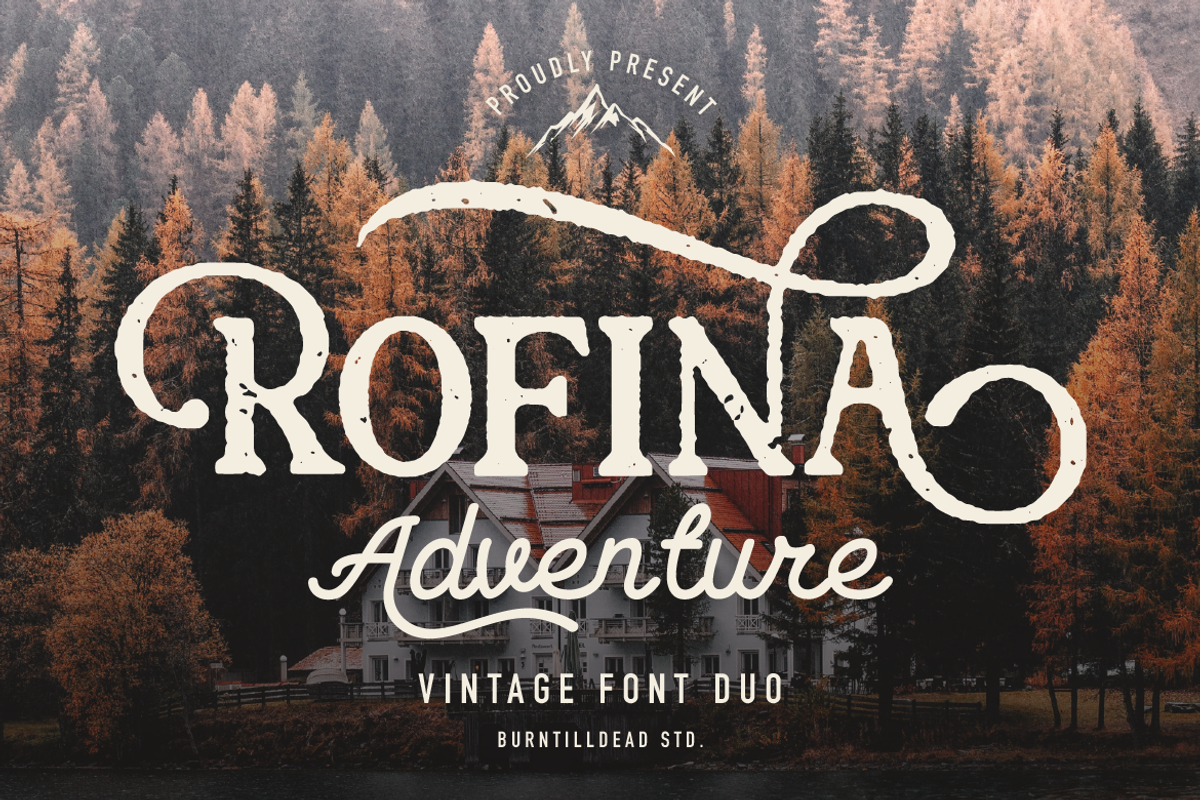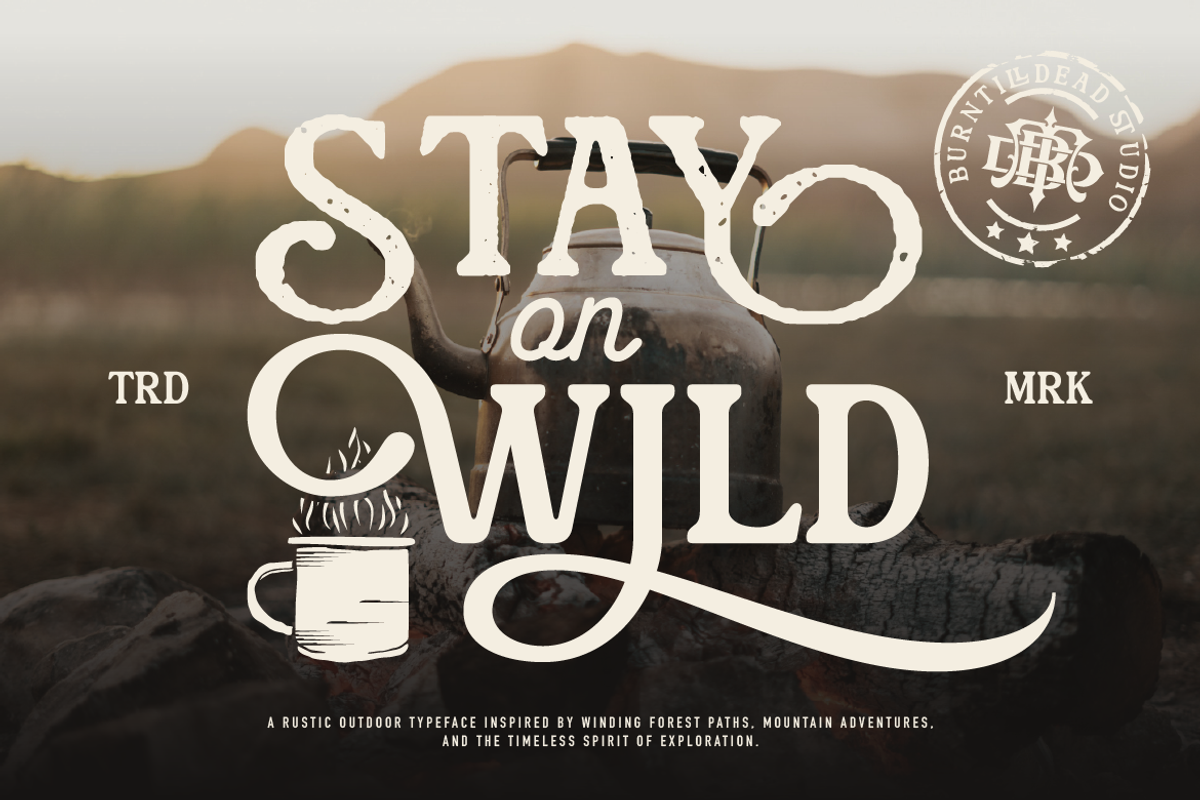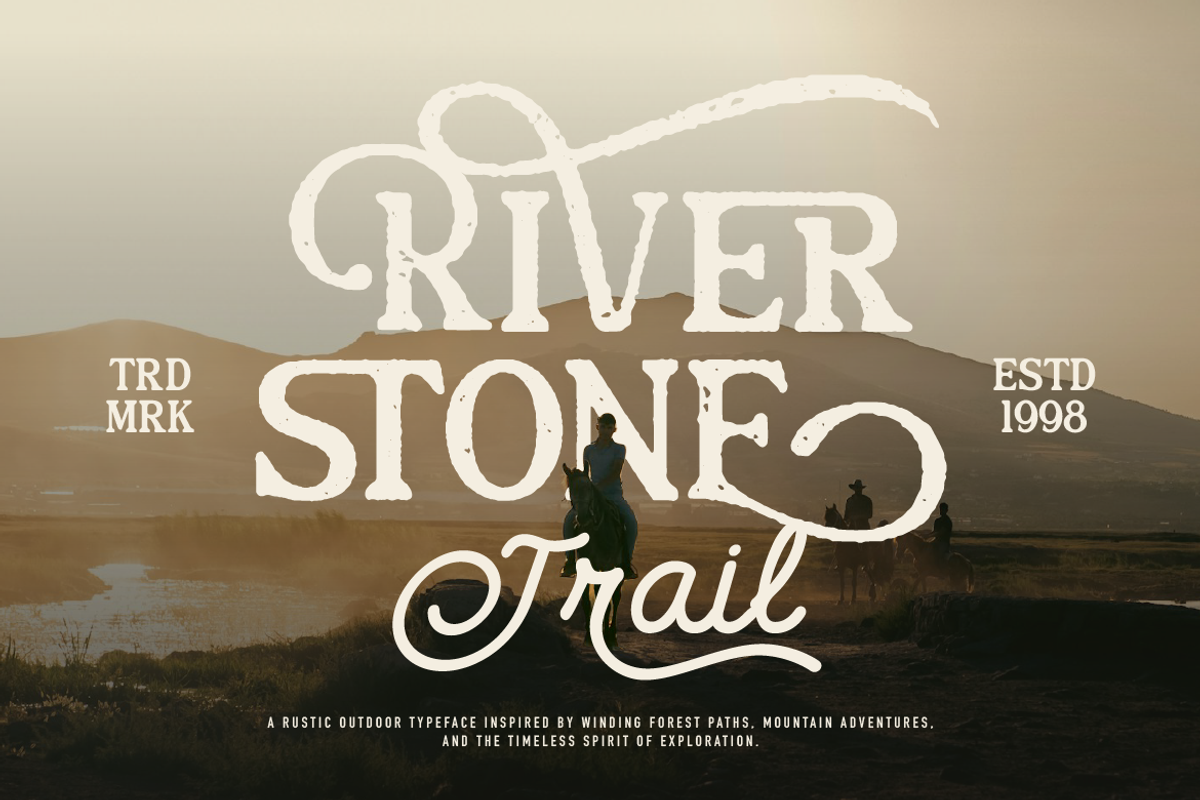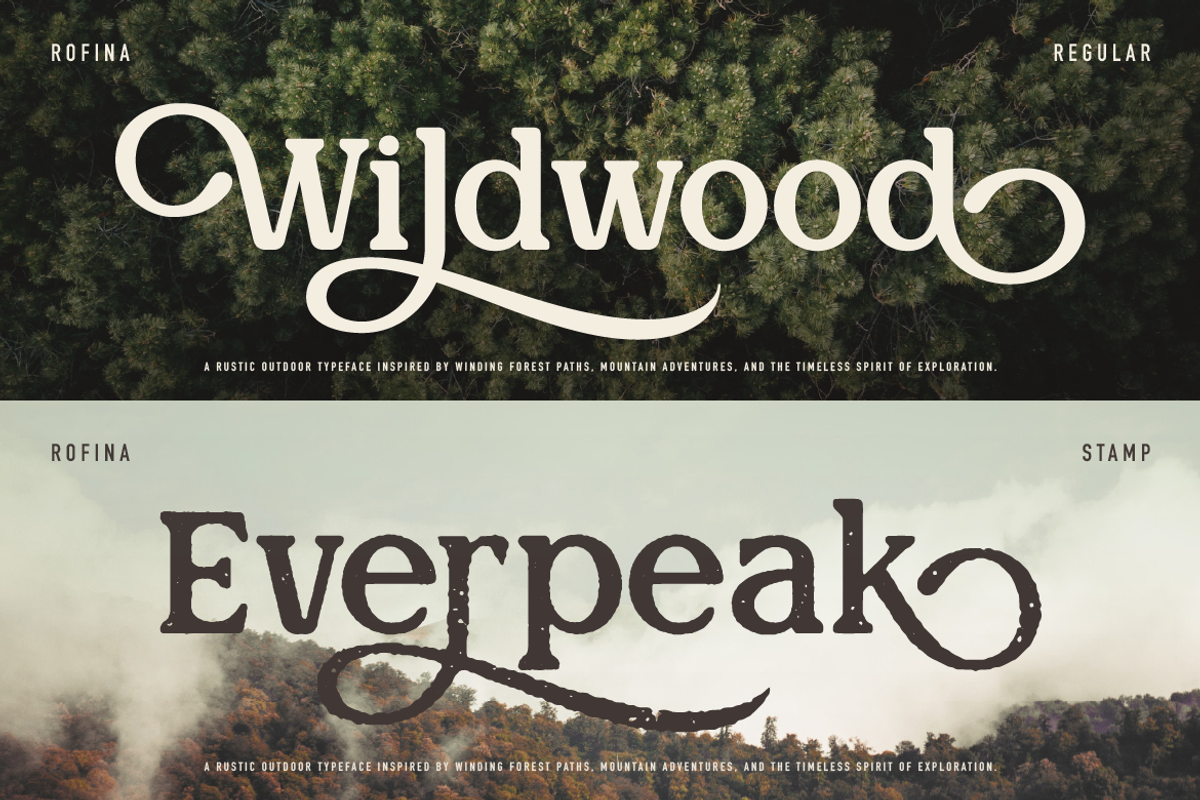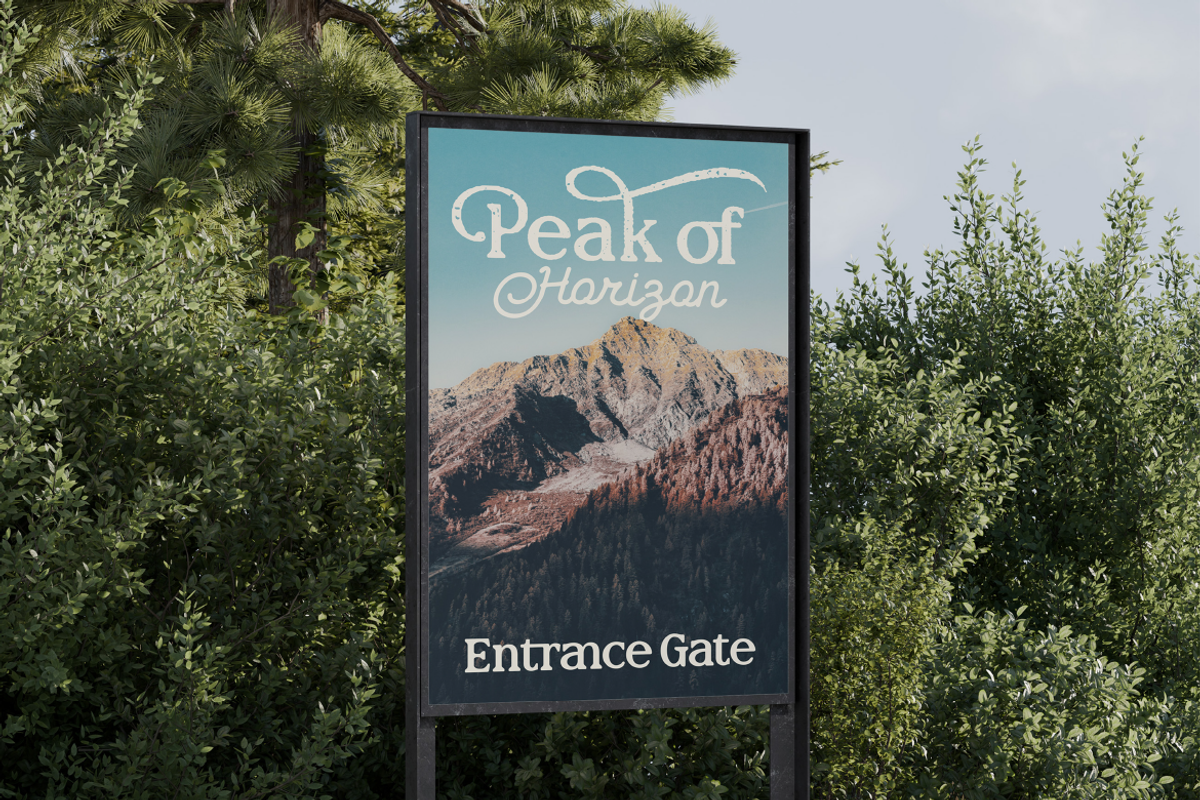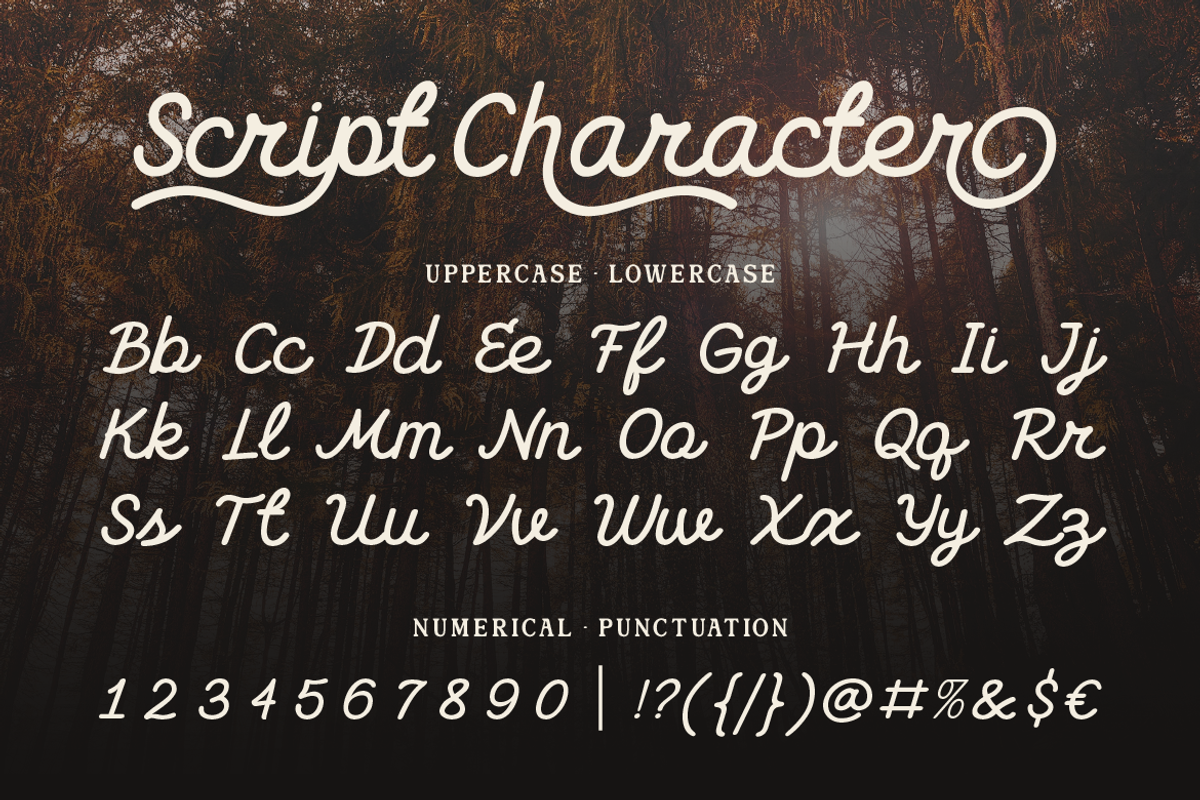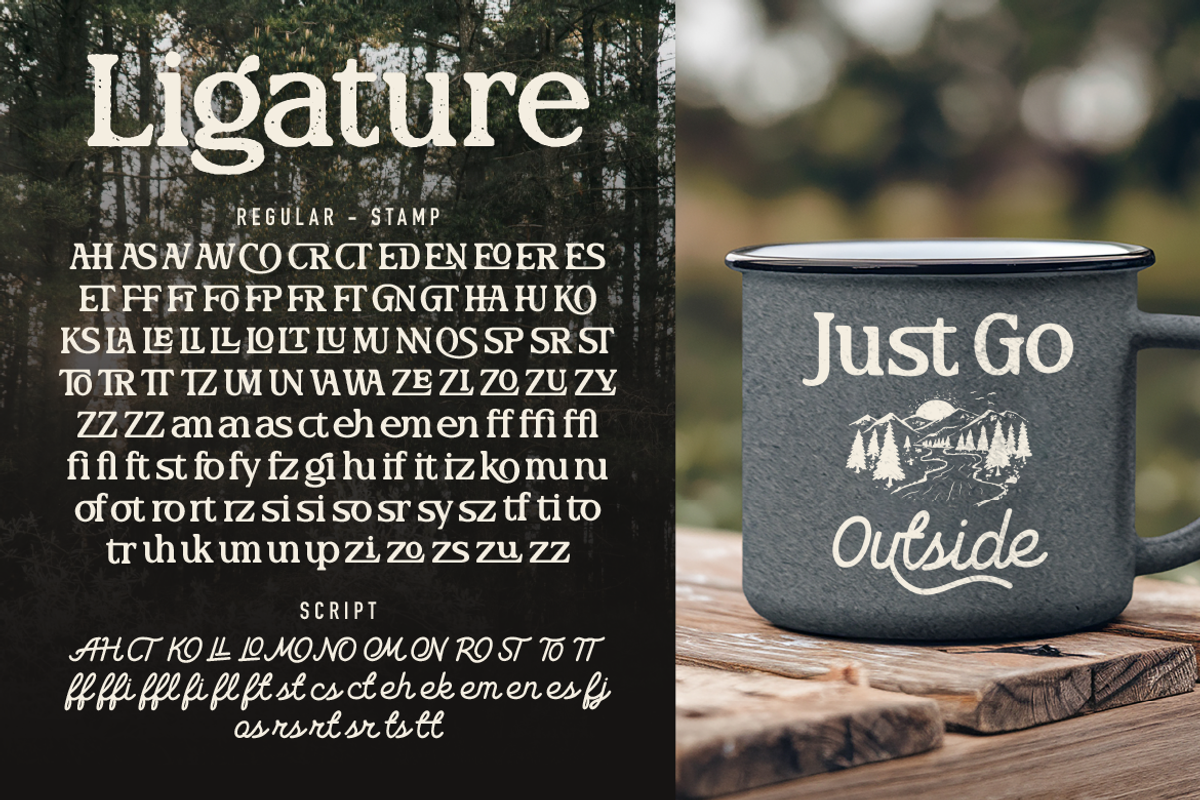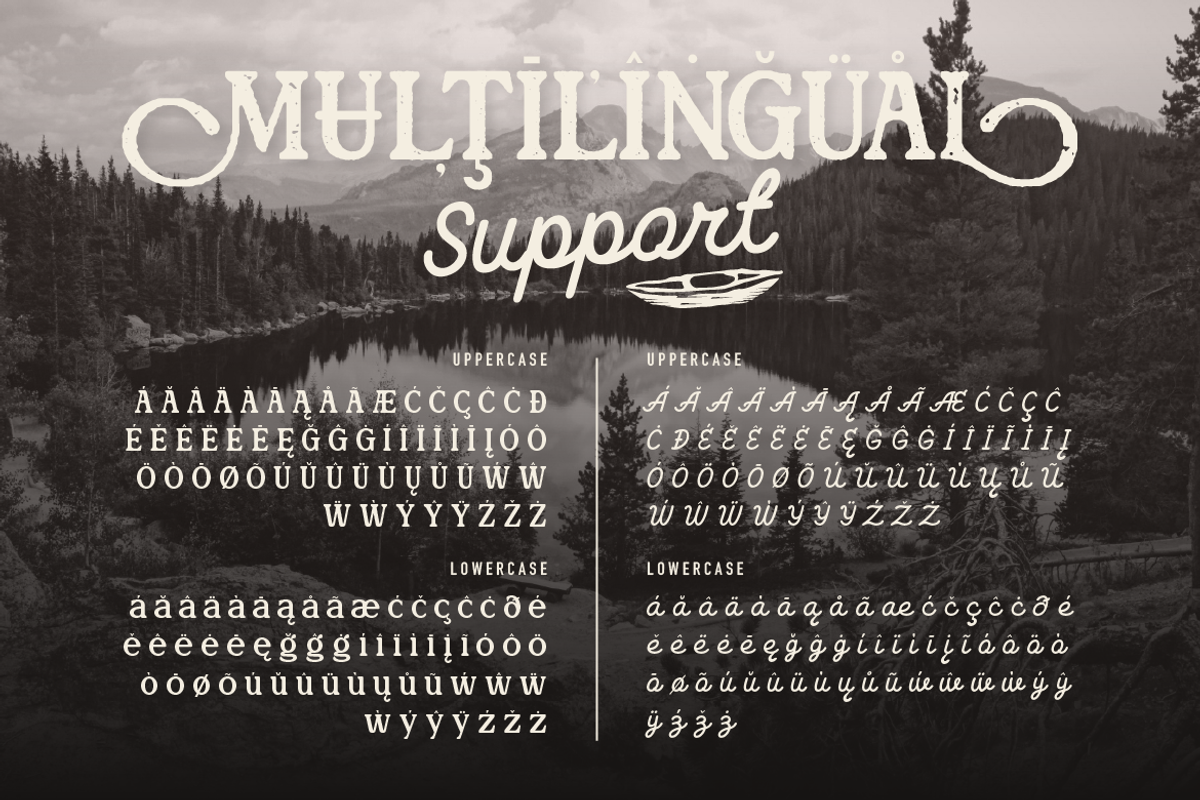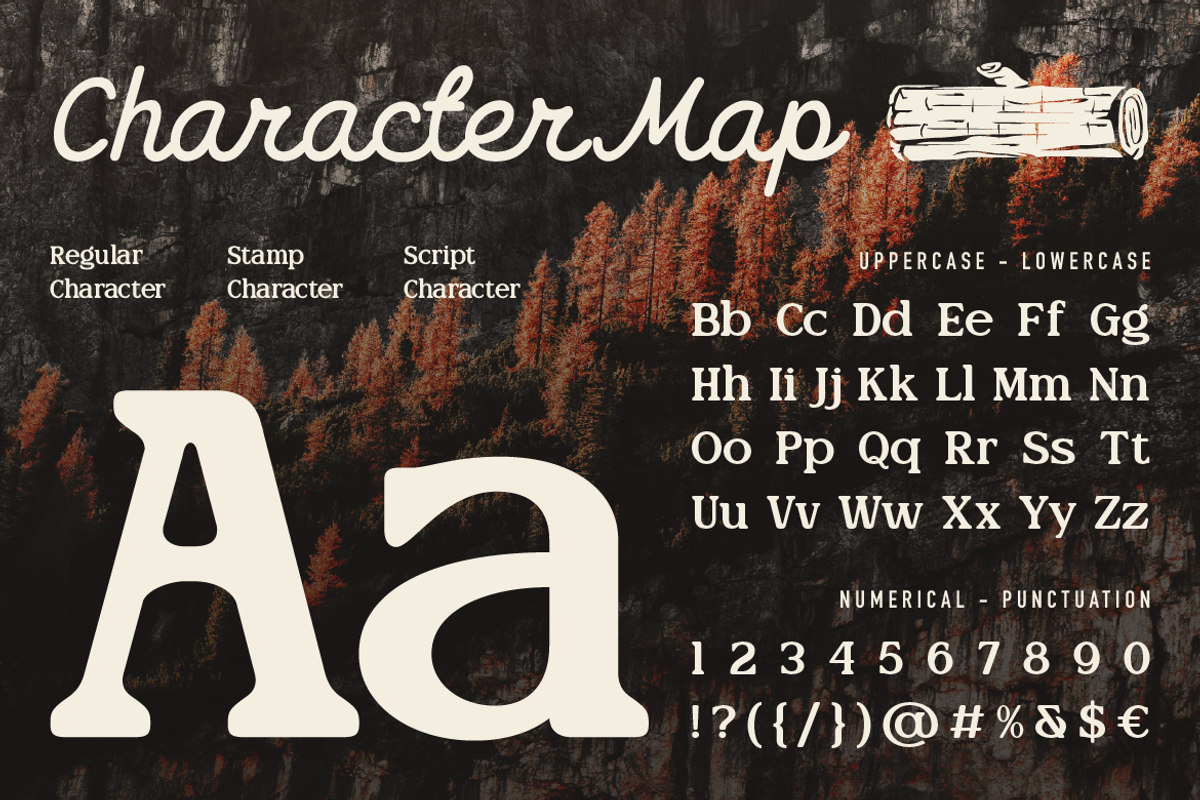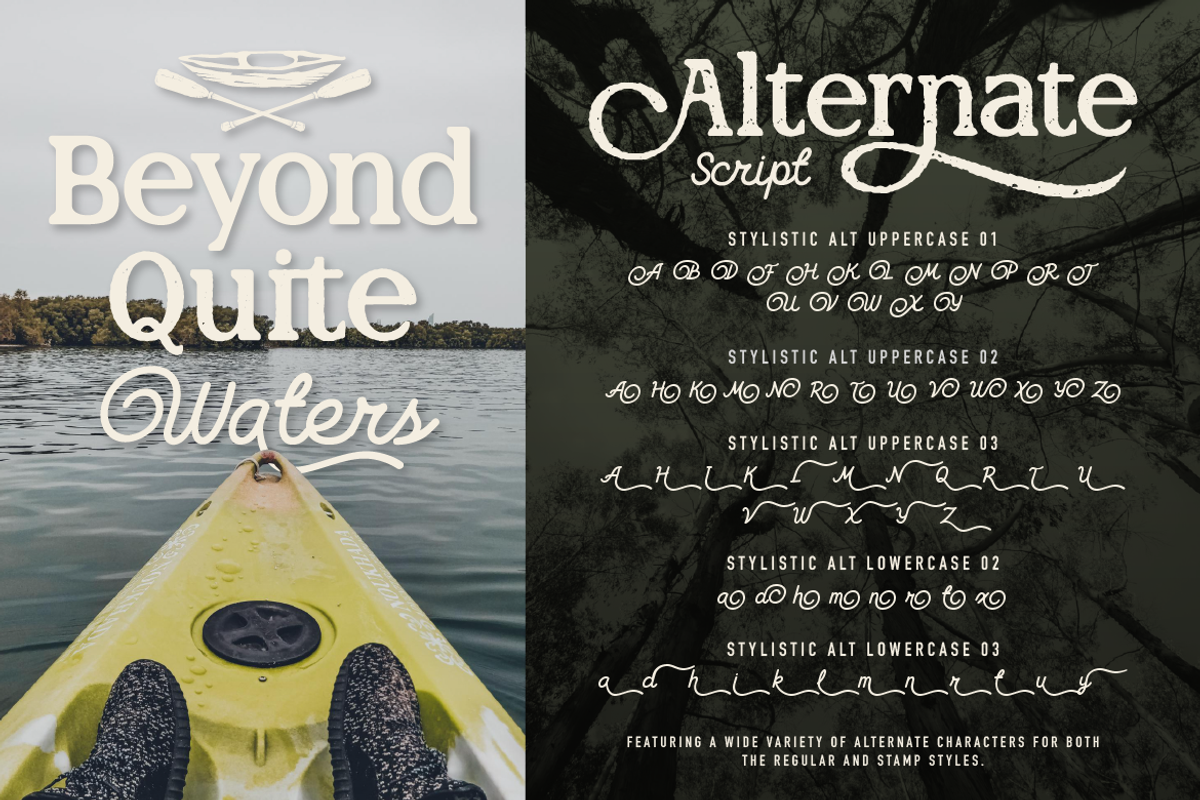
Rofina
Rofina is a font duo that combines a strong serif with a soft, flowing script. It’s designed to feel balanced—structured but not stiff, expressive but still easy to read.
The serif comes with a solid, confident look, while the script adds a more relaxed and personal touch. When used together, they create a nice contrast that feels natural and effortless, whether for headlines or supporting text.
This duo also includes a stamp style version, which gives your design a slightly rough, textured feel—like something printed by hand. It’s a simple way to add character and make your work feel a bit more organic and less “perfect.”
Rofina also features ligatures and stylistic alternates, so you can play around with the letterforms and create something that feels more custom and less generic.
Overall, it’s a flexible font that works across different styles—whether you want something clean, expressive, or a bit more textured.